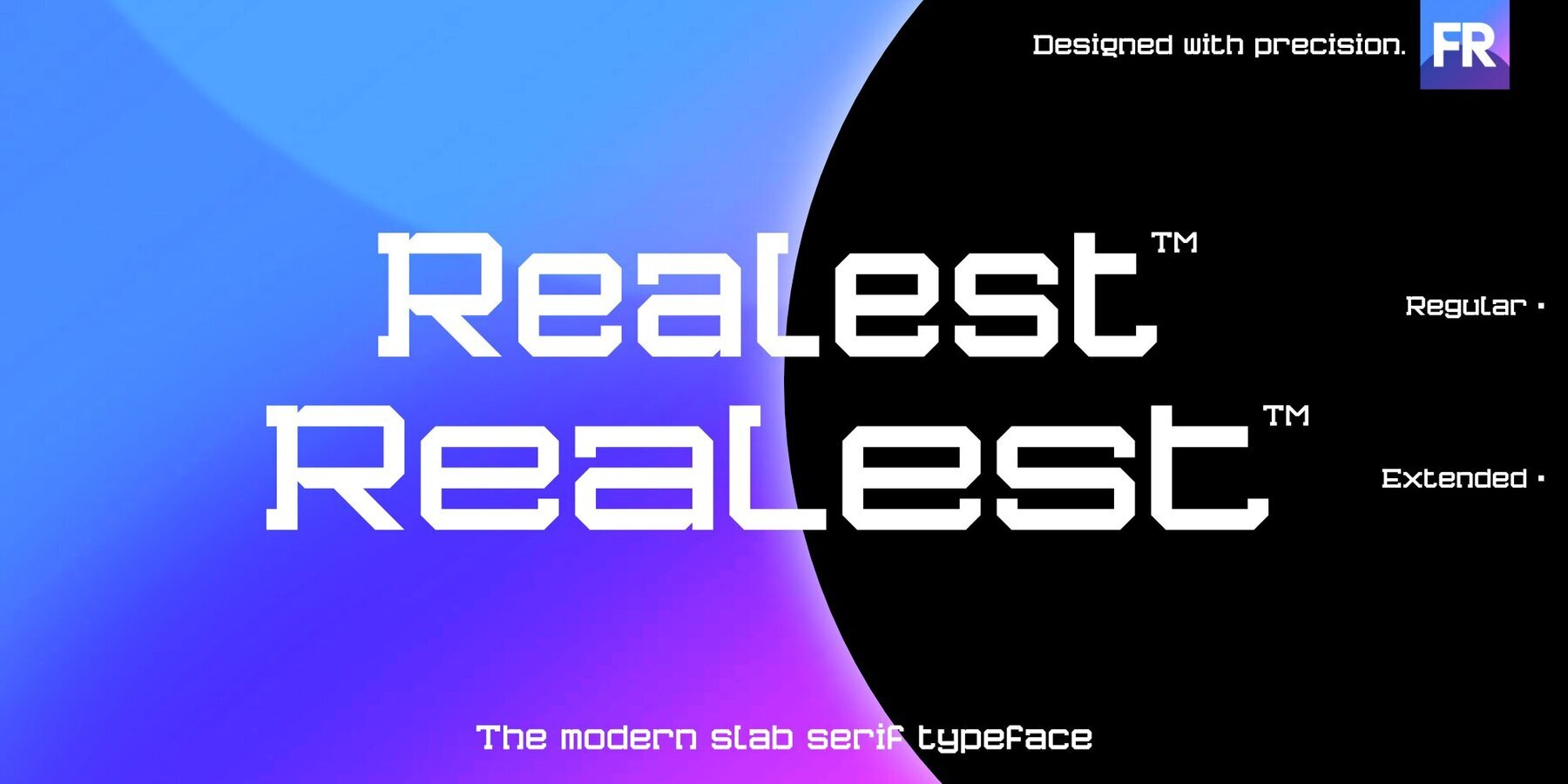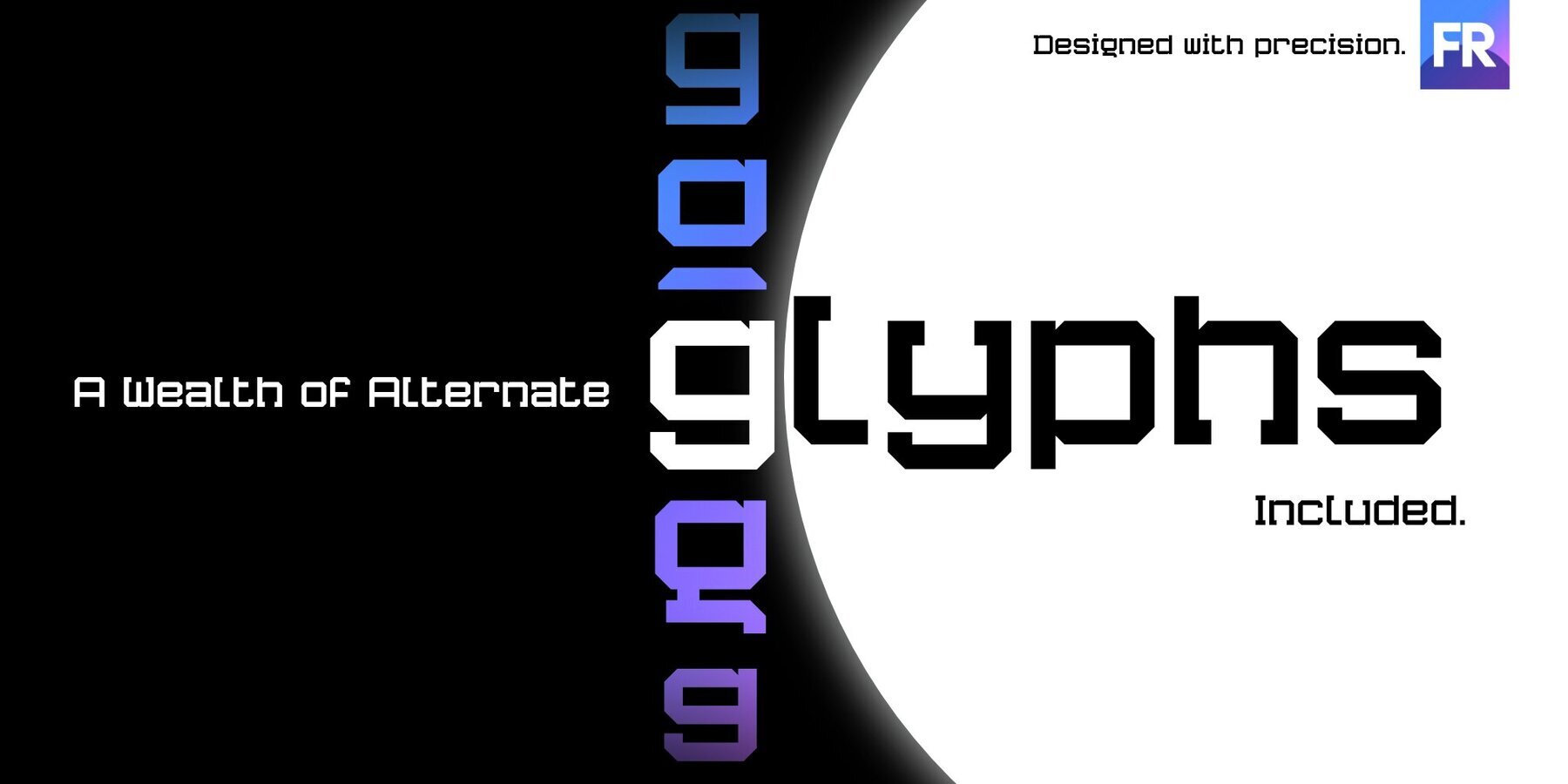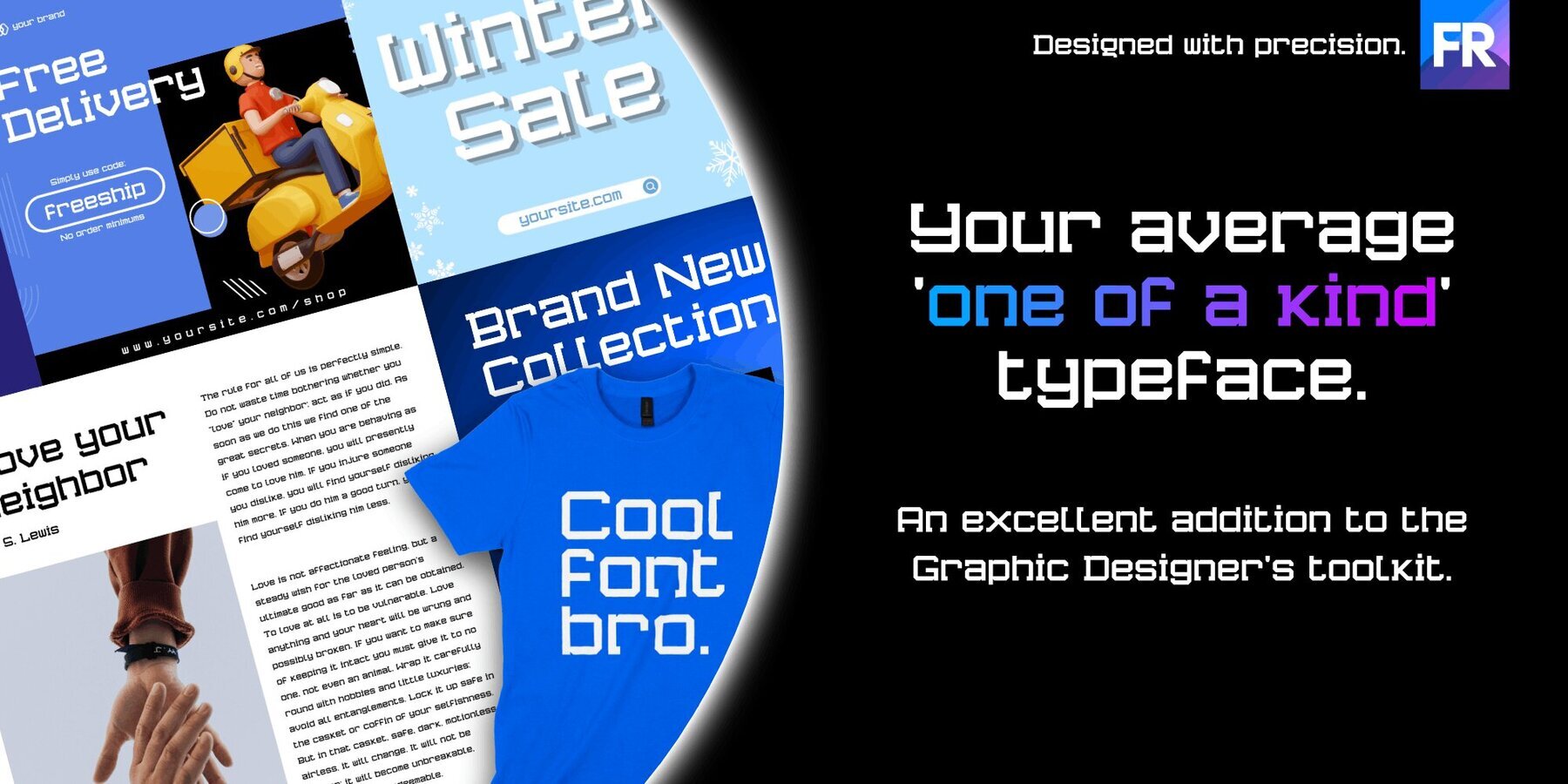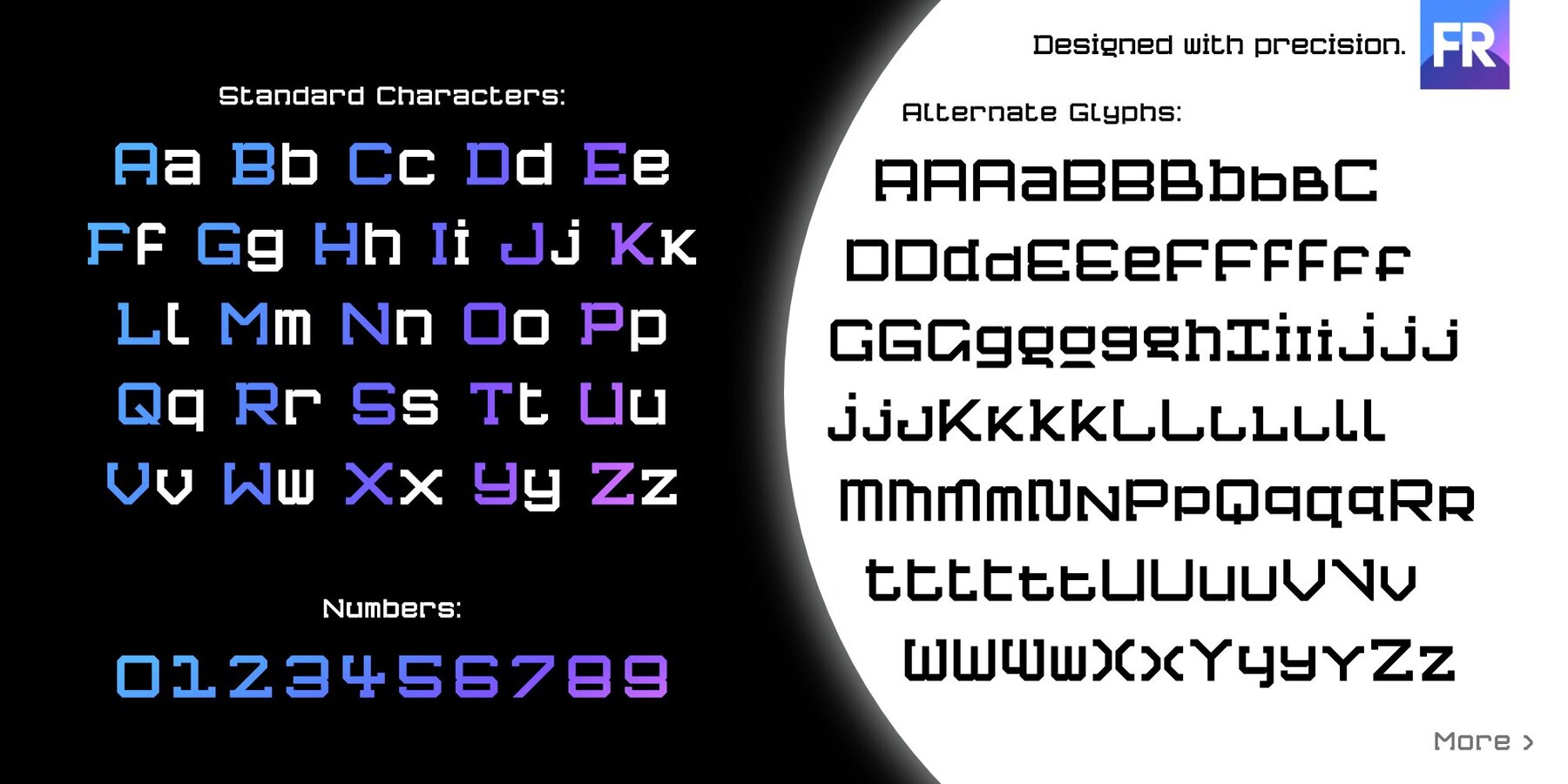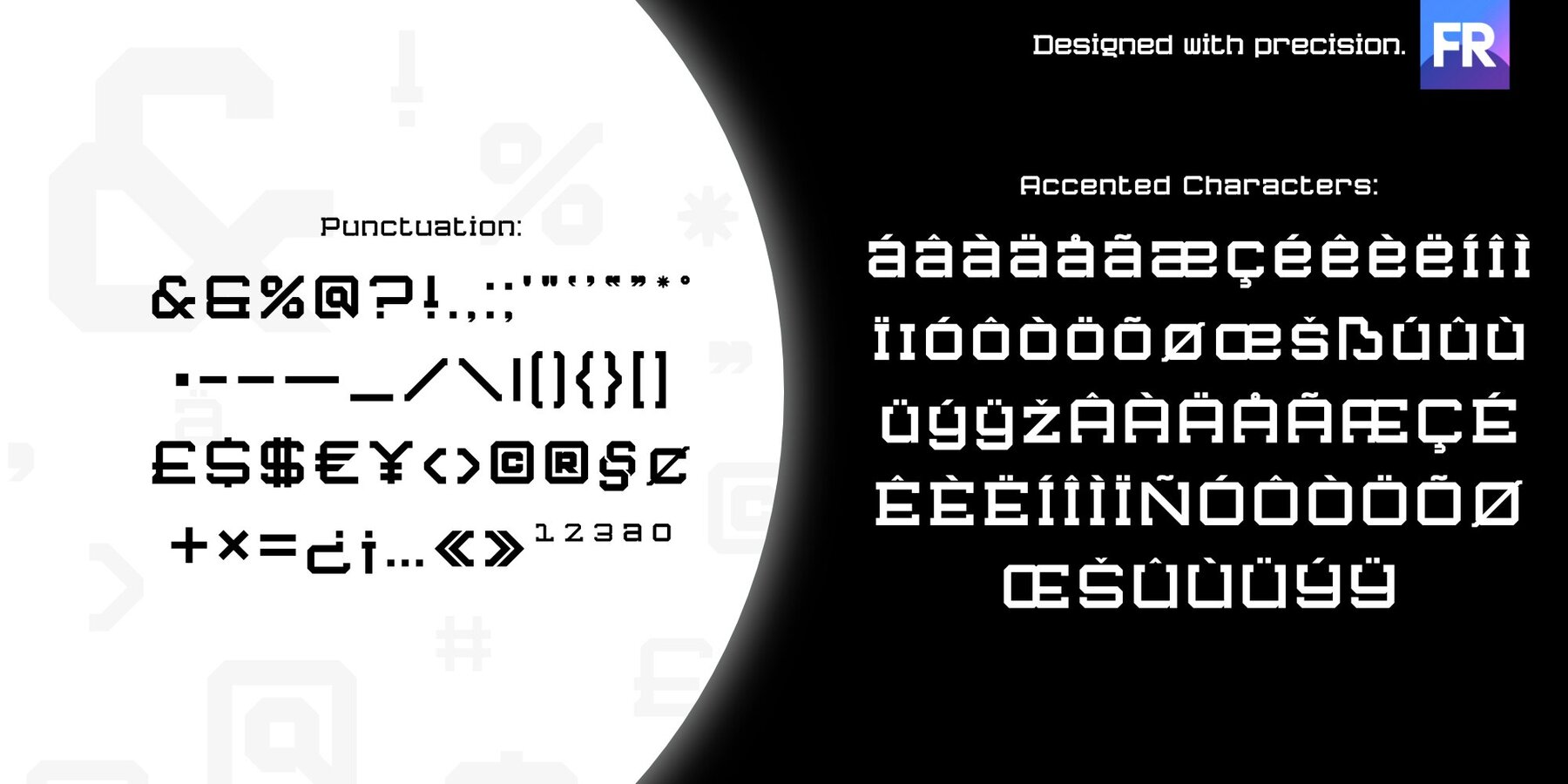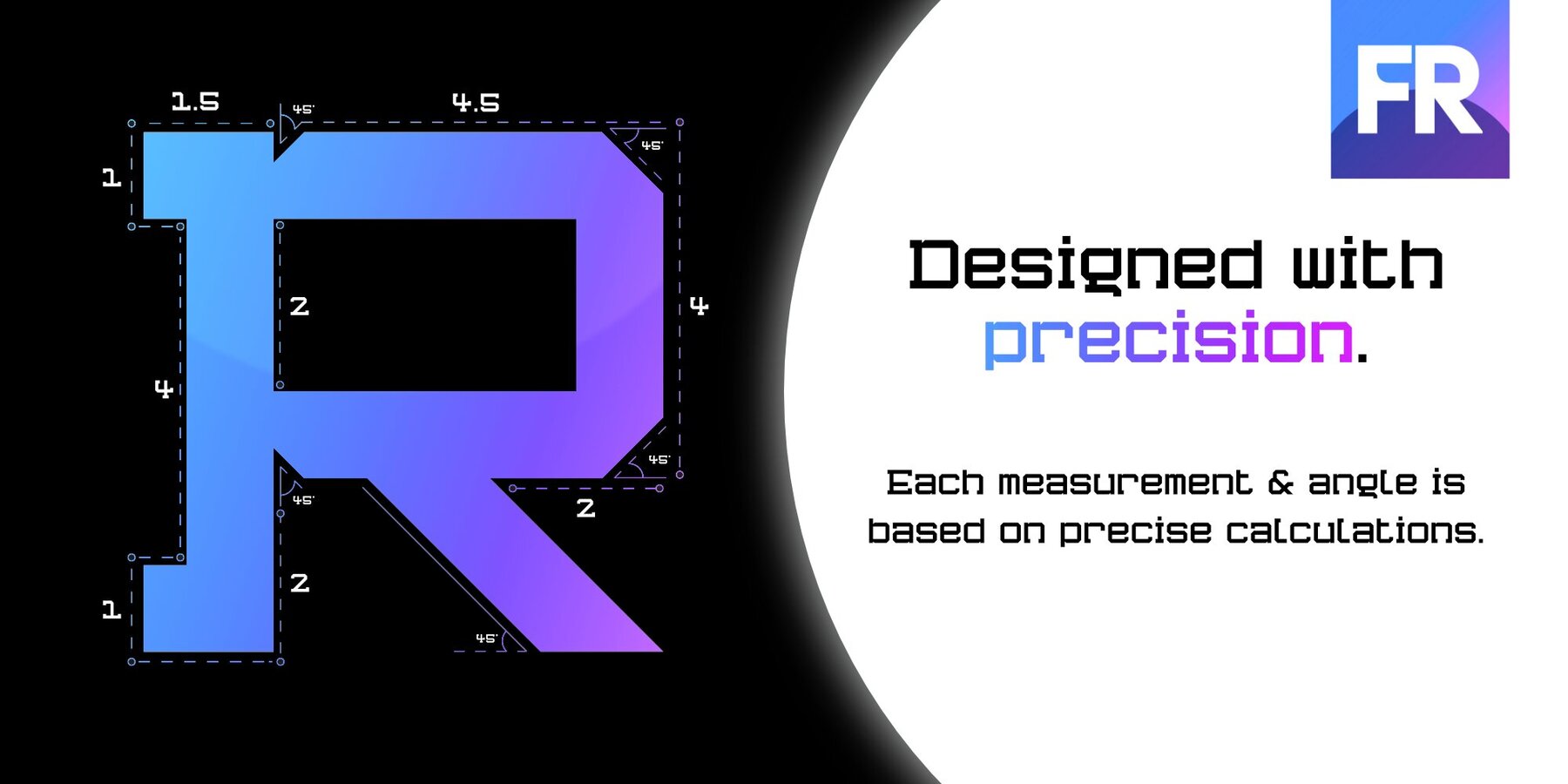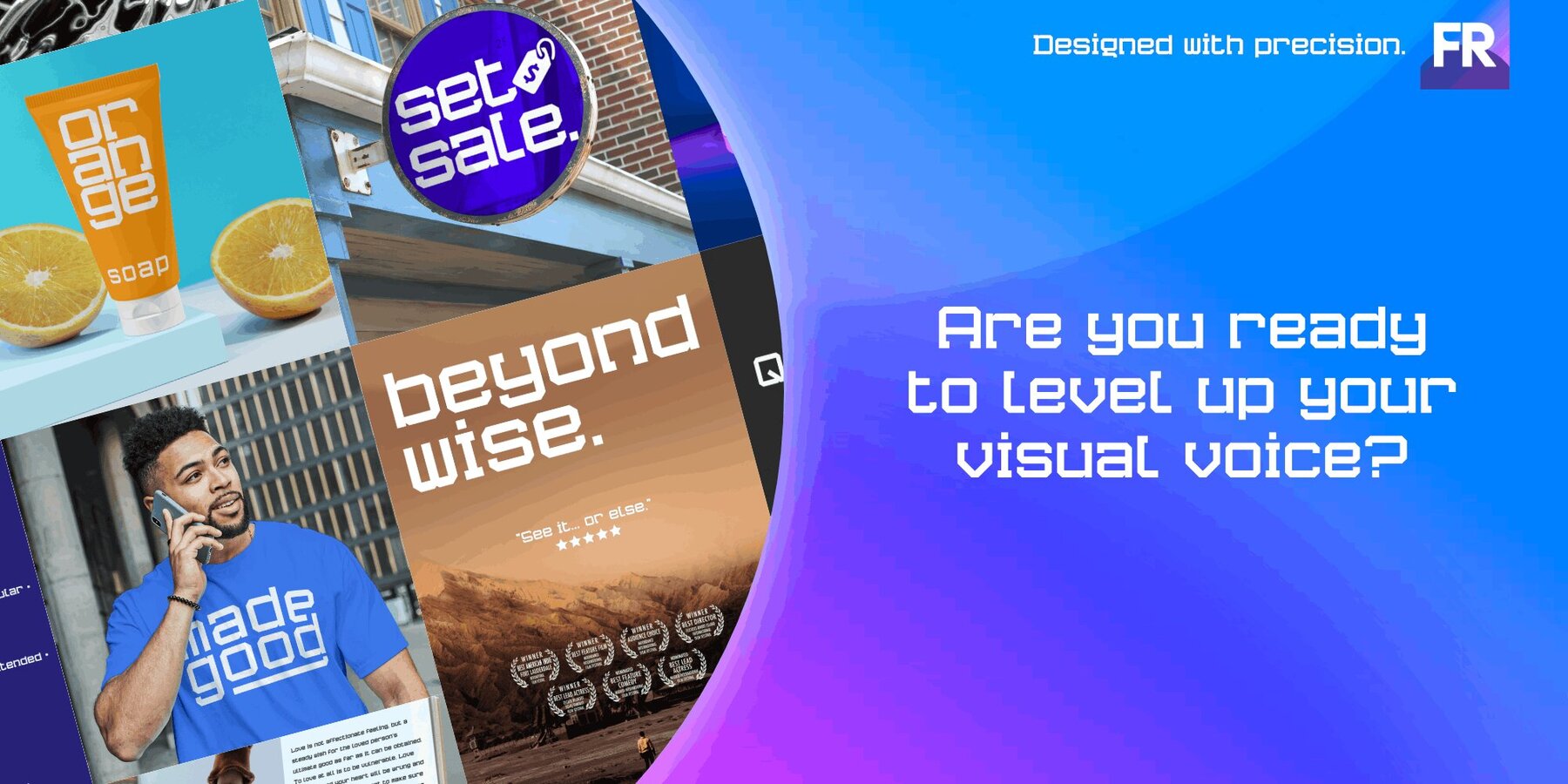
Realest Font
A great addition to every graphic designer's toolkit. Realest™ is a modern slab serif font designed with mathematical precision. The entire typeface is crafted with consistent angles & measurements down to the smallest detail. It is built on mathematics. For this reason, it is a highly versatile font, ideal for branding, logos, websites, ads, graphics, clothing & printable materials. What makes Realest™ stand out is its classy yet modern style. It could be classified as 'futuristic' (due to its square-shaped structure), yet the slab serif details add a touch of class that most futuristic fonts lack. This gives it a unique character, making it ready to perform well in a wide variety of creative projects. Features: • A unique fusion of Modern & Slab Serif styles. • Designed with mathematical precision. • The characters share the exact same dimensions (where possible). • Monospaced (with even spacing between characters). • Comes with a generous number of alternate glyphs & accented characters. • Available in both Regular & Extended (wide) styles. • Highly versatile
Font Row is a London-based Type Foundry that utilises 'mathematical precision' to maximise uniformity, resulting in revolutionary typefaces. To achieve uniformity, all characters share angles and measurements where possible. The drive to achieve perfection is never pursued at the cost of visual appeal. Enough...